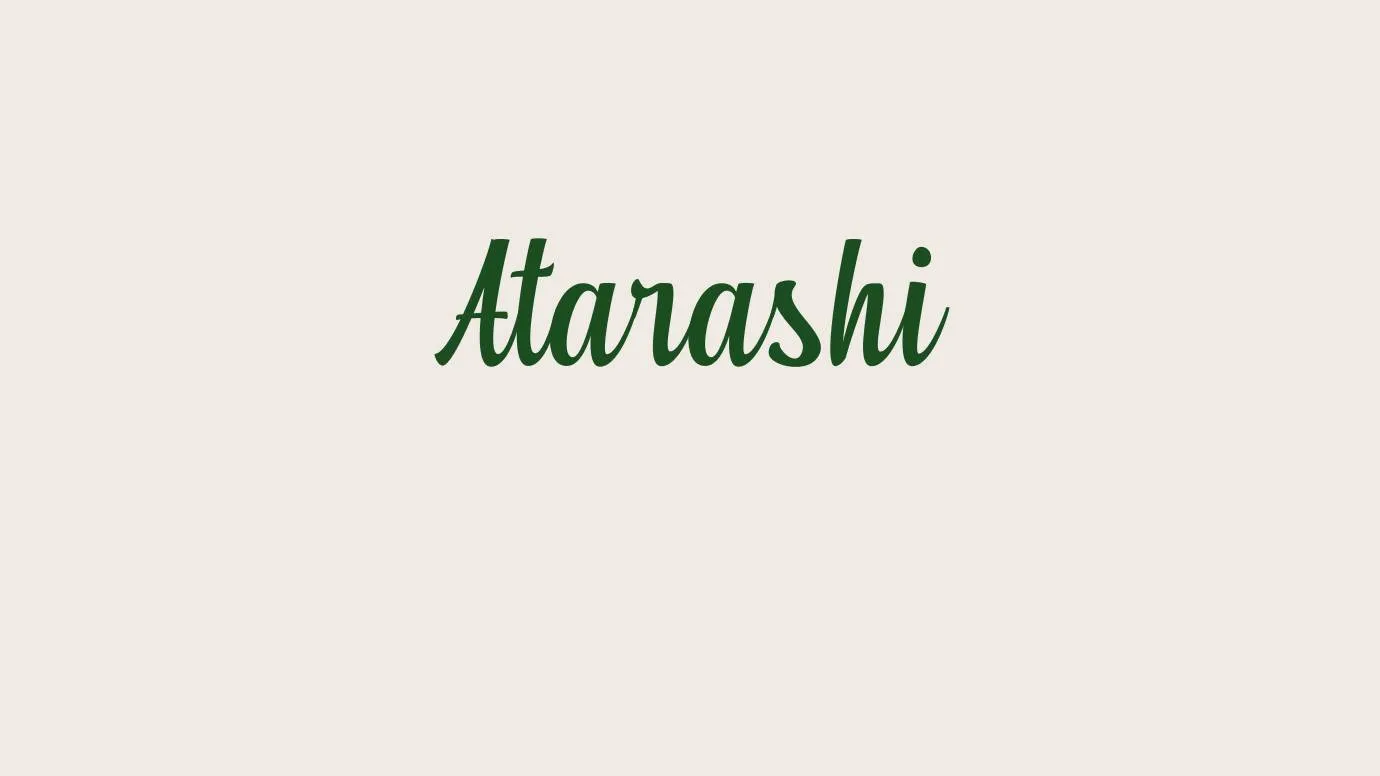
Atarashi Font Family is a very stylish handwritten Japanese font. This amazing font was launched in 2003 and manufactured by Ryoichi Tsunekawa. The look of this amazing handwritten font is very neat and clean.
It has 267 characters, 227 glyphs and 1000 units per Em. Its Unicode supports 2.0 and BMP only. Unicode blocks it supports are Basic Latin, Latin-1 Supplement, Spacing modifier letters, and general punctuations.
Atarashi Font
NameAtarashi Font
DesignerRyoichi Tsunekawa
TypeHandwritten